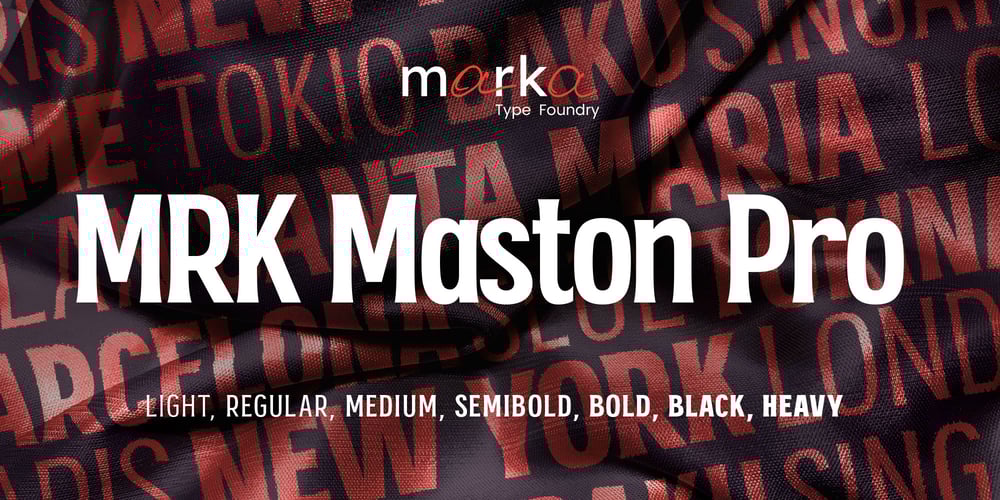
MRK Maston Pro Font Family was designed by Murad Asadov, Rizvan Bagirli, Qnyaz Yaqubov and published by Marka Design. MRK Maston Pro contains 7 styles and family package options. MRK Maston Pro is a vintage look display typeface with 7 versions of styles. This typeface adds a bold and iconic style to your retro and modern graphic designs. It’s perfect for any graphic design or typography project that requires a solid mood. You can also use in your UI designs for a better style and system. A stylish and extraordinary font containing all punctuations, and supports multi-languages.This font is suitable for various purposes such as street style designs, T-shirts, posters, logos, labels, packaging, branding, editorial design, UI designs, and modern purposes.